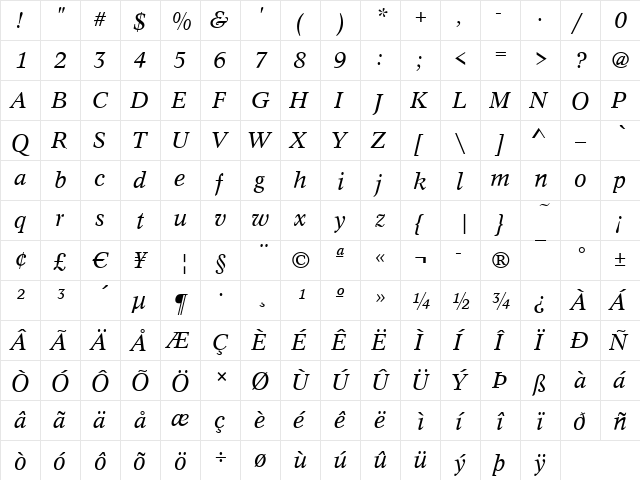
Concept Italic Font Preview
Concept Italic
Concept Italic Font Details
Design Context for Concept Typeface
Concept takes a measured approach to typography — its balanced proportions and neutral character make it a reliable workhorse for both digital and print work. The slanted form adds forward momentum and visual energy.